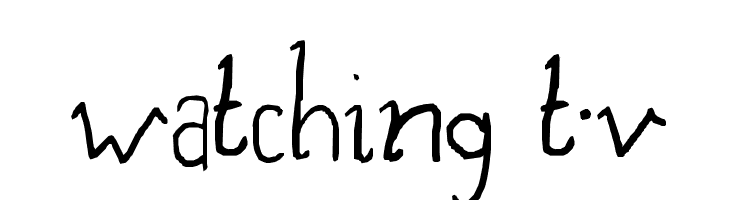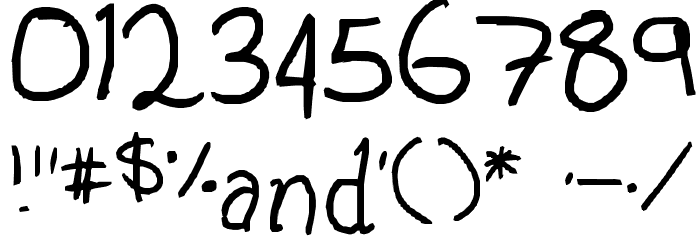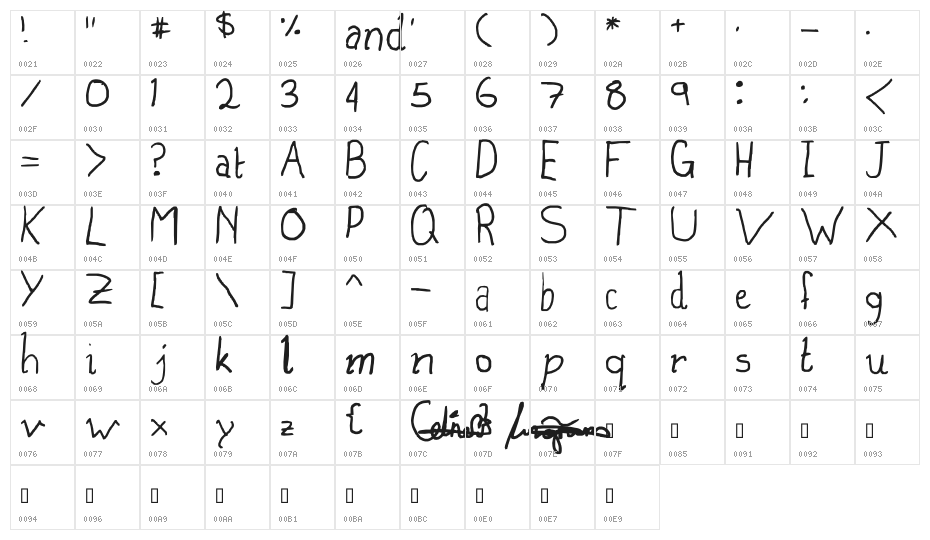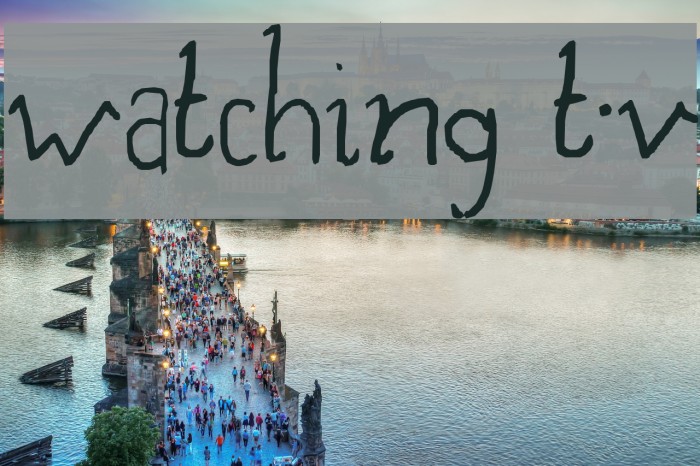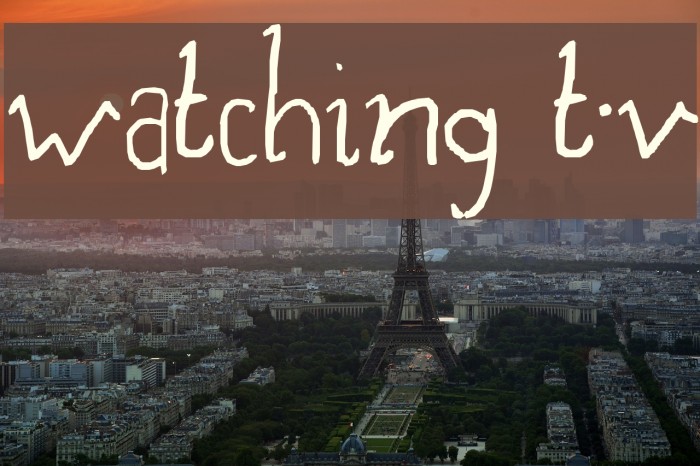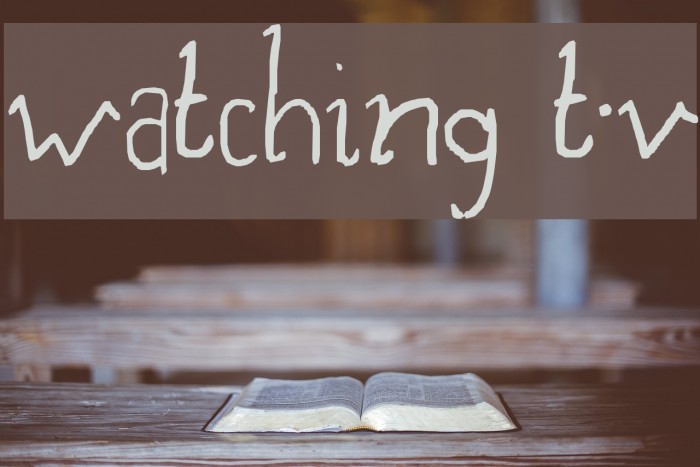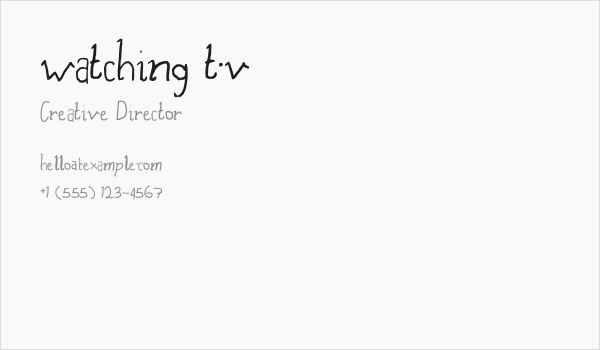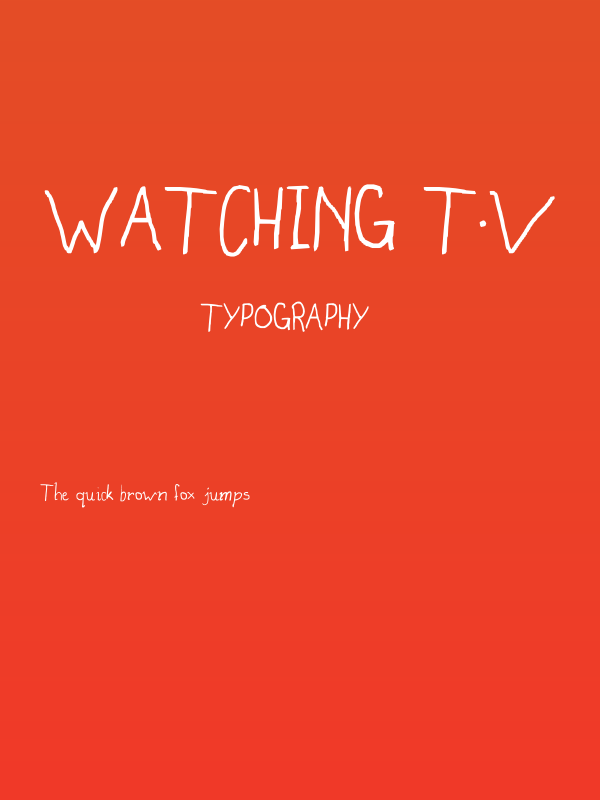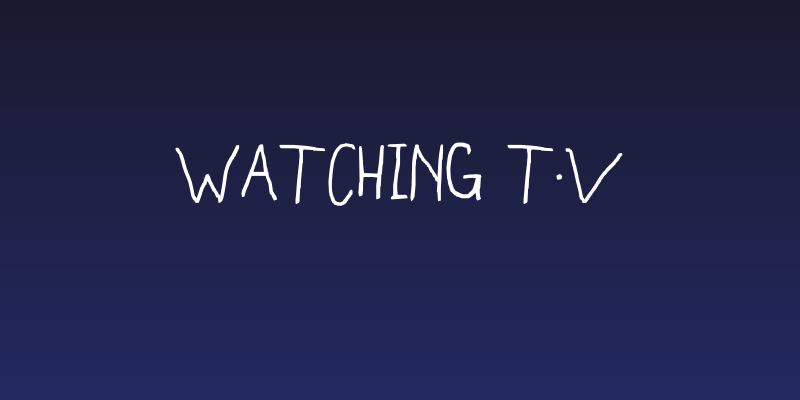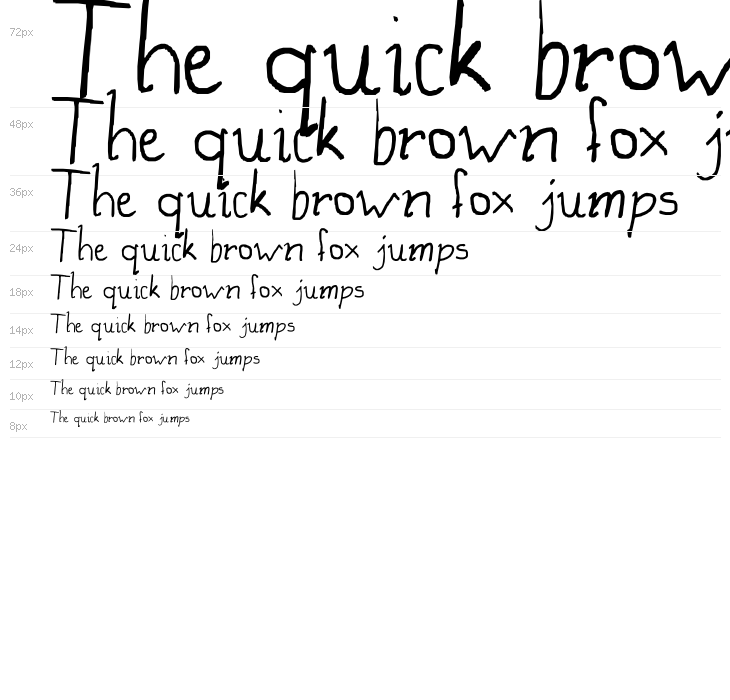
watching t.v Font
watching t.v Description
This font features a playful and informal handwritten style, characterized by its uneven strokes and slightly irregular letterforms. The uppercase letters are tall and narrow, while the lowercase letters exhibit a more varied height and width, adding to the casual feel. The numbers maintain the same playful aesthetic, with rounded edges and varying stroke thickness. Special characters are included, maintaining the same hand-drawn quality. This font exudes a sense of spontaneity and creativity, making it suitable for projects that aim to convey a personal or artistic touch.